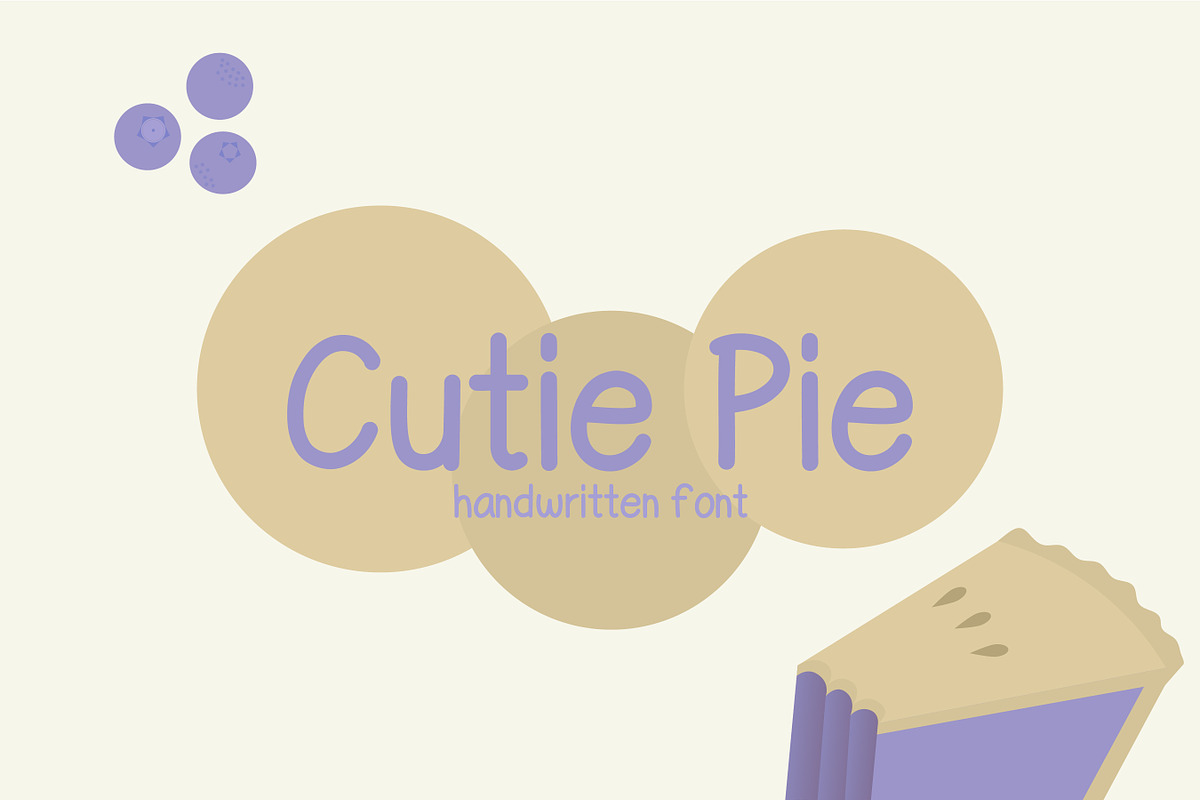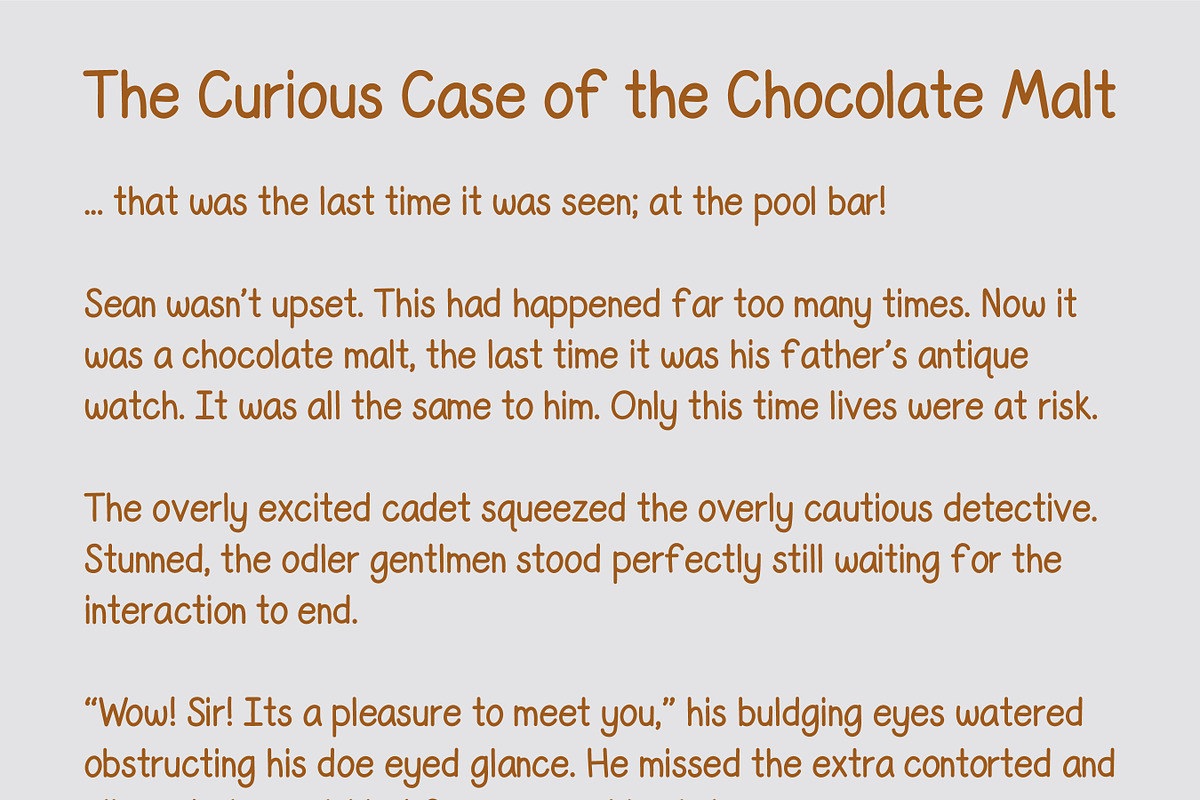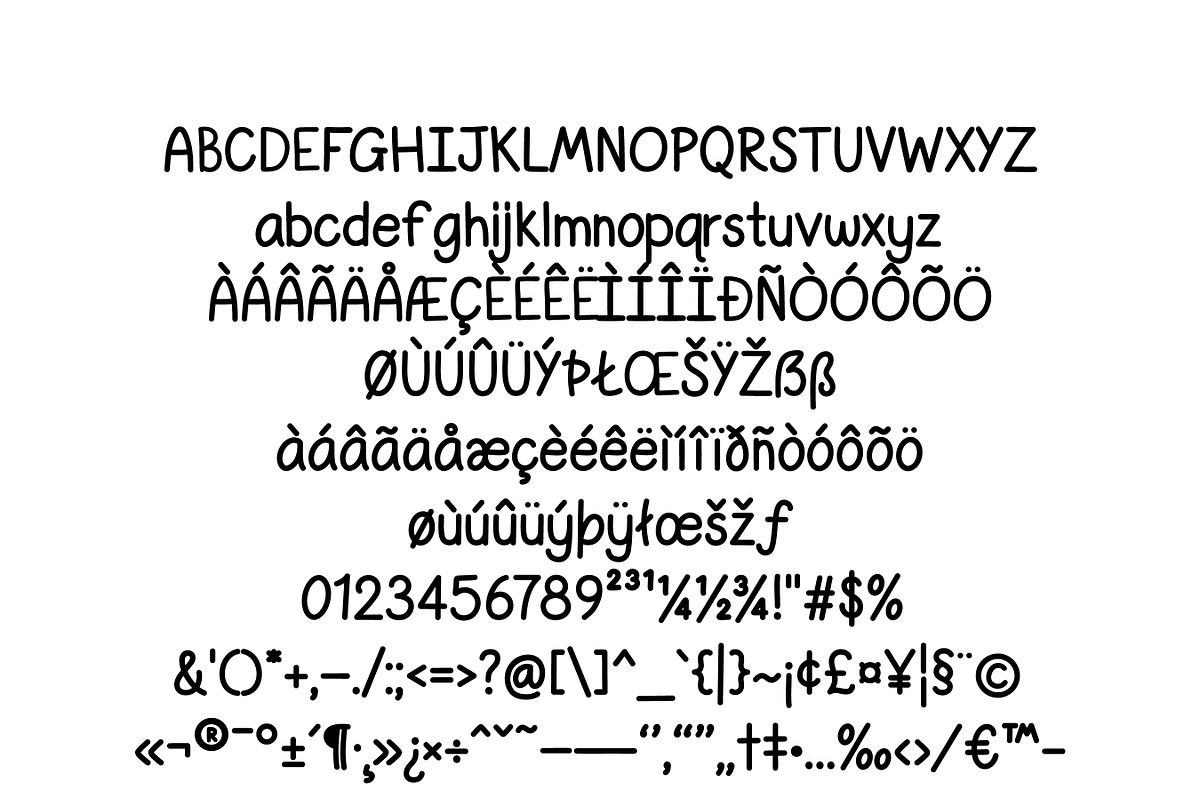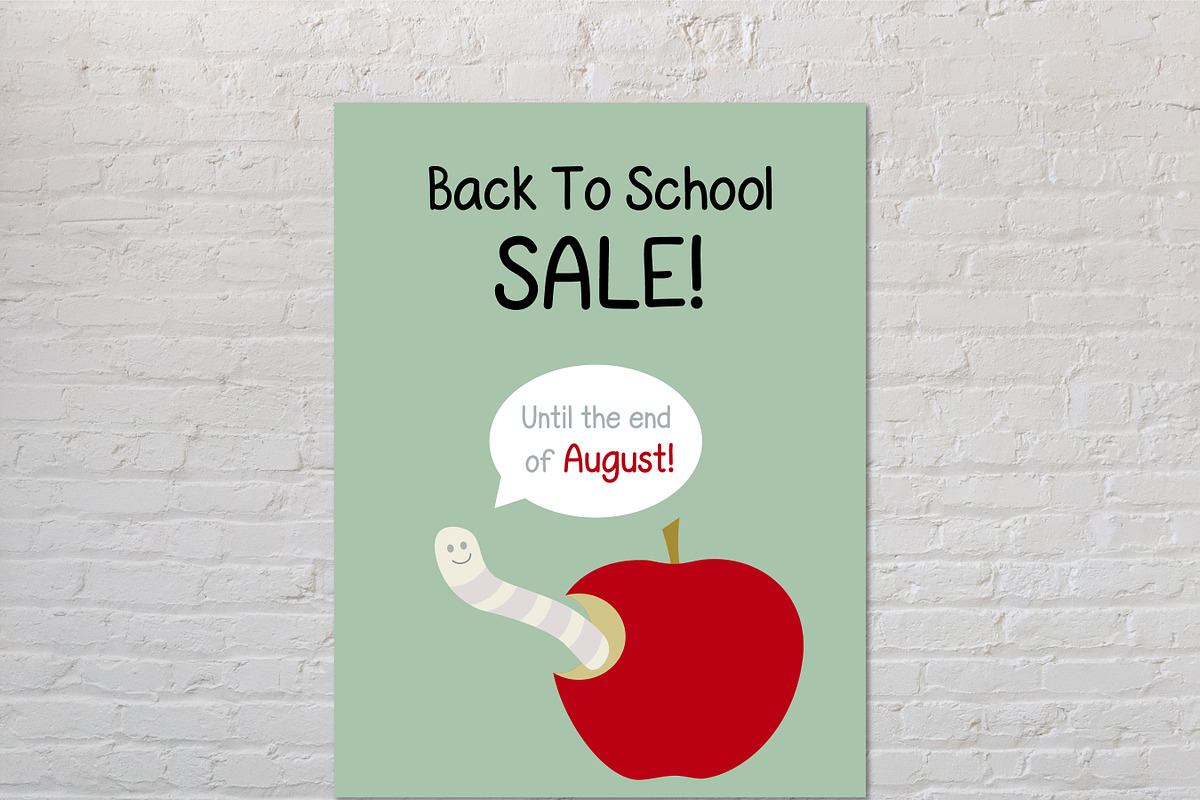
Cutie Pie Font
This is the cutest font in the galaxy. It’s neat yet adorable! Use it for posters, note-taking, or even cute logo designs. Your imagination is the limit.
Great for branding, crafting, display font, wall art, handcrafted, hand written, handwritten, digital planner, and so much more.